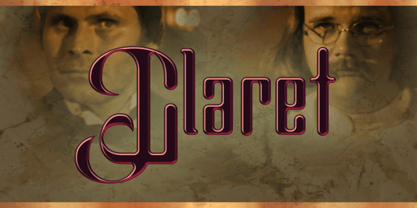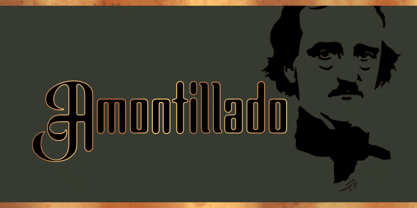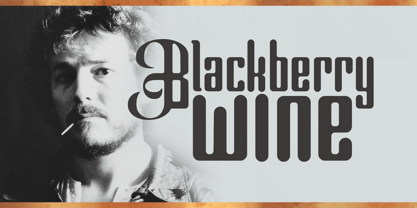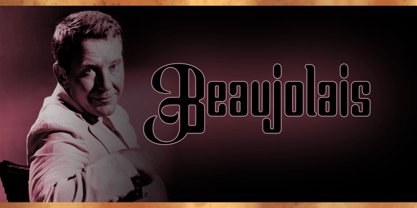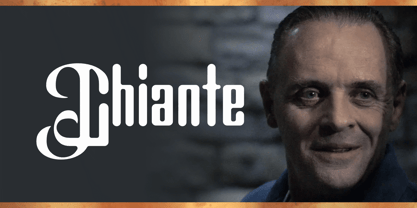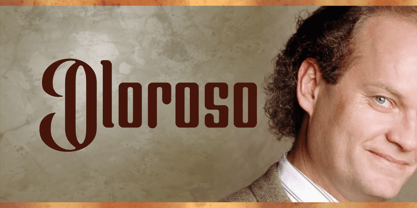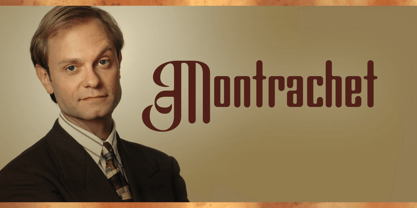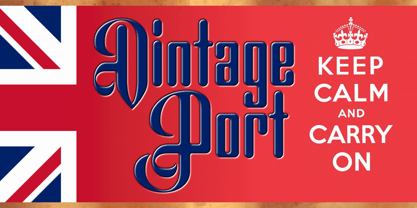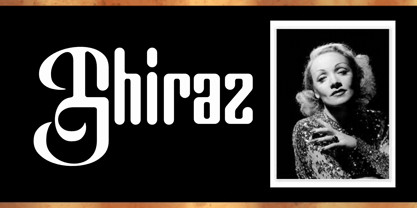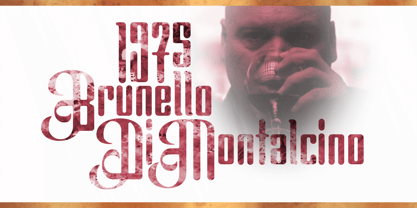
OEnoire
by MKGD
The OEnoire Font Family was designed by Michael Kovacevich and published by MKGD. OEnoire contains 1 styles. More about this family
The name of OEnoire s my portmanteau of œnophile and noire. Its construction is a blend of flowing uppercase flourishes and smooth, graceful, lowercase cleanliness. The thinking was that these characteristics would lend themselves well to any packaging or labeling that required a cultured, polished elegance. “Black Wine” also possesses an esoteric nature; one that hints at dark, hidden, moonlit pleasures. And, of course, the obligatory notes of citrusy fruits, tannins and honey.